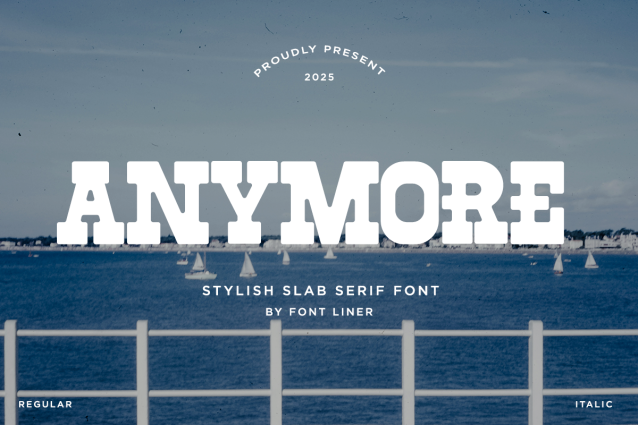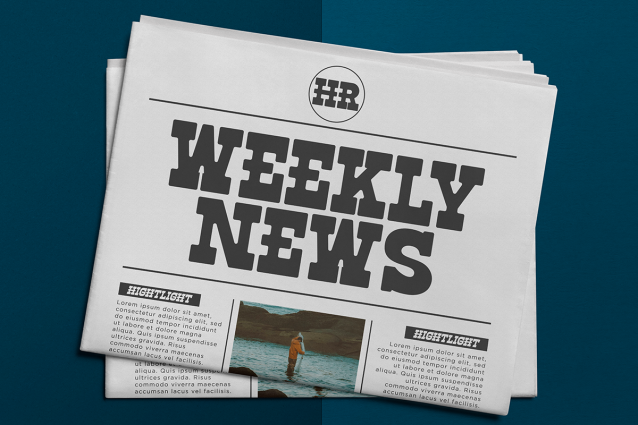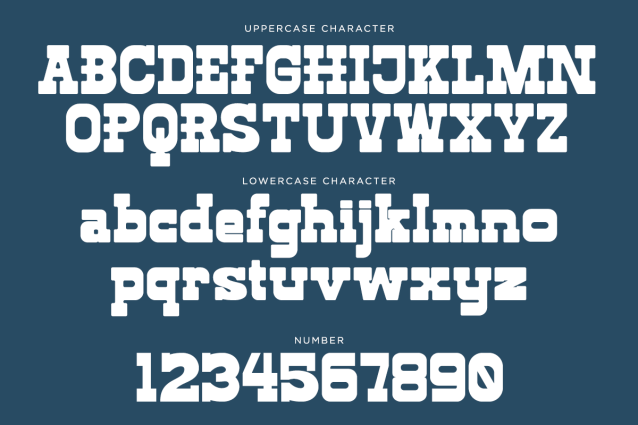
Anymore is a bold vintage slab serif font inspired by classic Americana typography, old-school sports lettering, and timeless western aesthetics. Featuring thick slab serifs, strong geometric forms, and a rugged personality, this typeface creates striking headlines while maintaining excellent readability. Its nostalgic yet contemporary style makes it perfect for projects that demand confidence, impact, and authentic vintage charm.
Designed for branding, logos, apparel, sports graphics, posters, product packaging, editorial layouts, merchandise, food labels, beer brands, outdoor businesses, and social media campaigns, Anymore delivers outstanding versatility across both print and digital media. Whether you’re creating retro-inspired identities, bold advertising, or eye-catching packaging, this font instantly adds character and visual strength to your designs.
Anymore includes regular and italic styles, uppercase and lowercase letters, multilingual support, numerals, punctuation, symbols, and extensive language coverage for professional use. From vintage branding and western themes to streetwear collections, music covers, magazine headlines, and lifestyle products, Anymore is the perfect slab serif font for designers seeking bold, timeless typography with lasting visual impact.